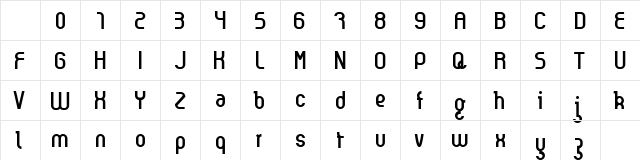
Kyma Kyma Free Font
Kyma Kyma
Style: Kyma
Foundry: Beno￿t Sj￿holm
Designer: Beno￿t Sj￿holm
Design Context for Kyma
Kyma is a composed and adaptable typeface that performs quietly and consistently across a wide range of design contexts.